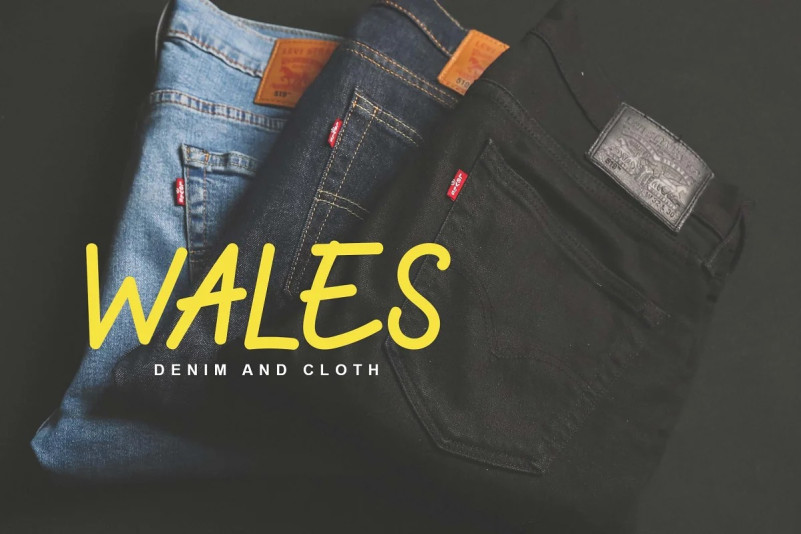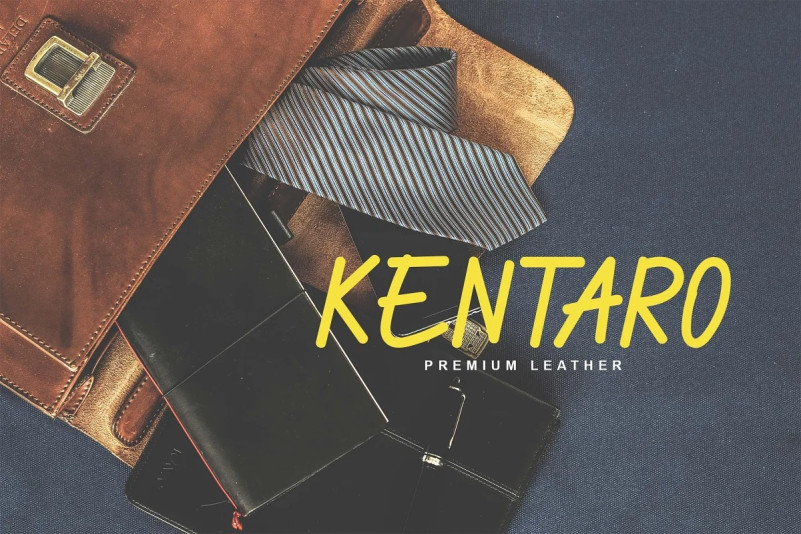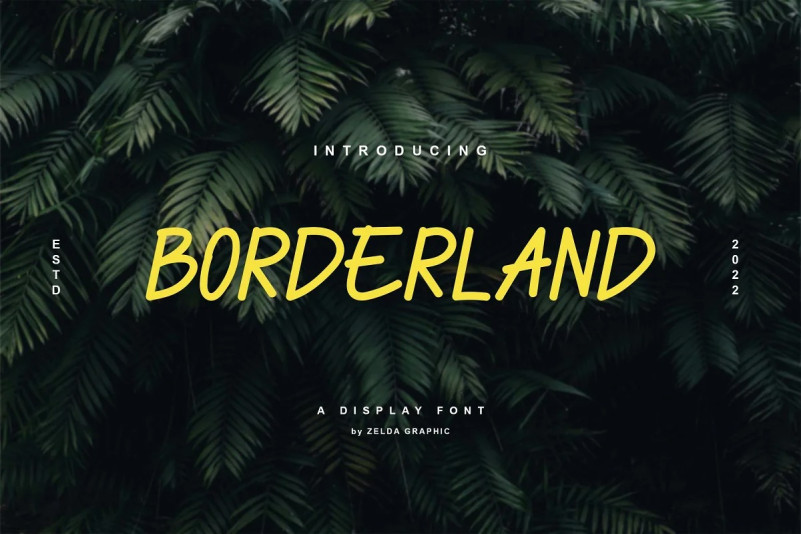
Borderland Font
Borderland Font is a modern and awesome handwriting font with a natural style. This font is suitable for your current or classic design: Signature. Logo. Branding. Invitation. Blog Headline and many more.